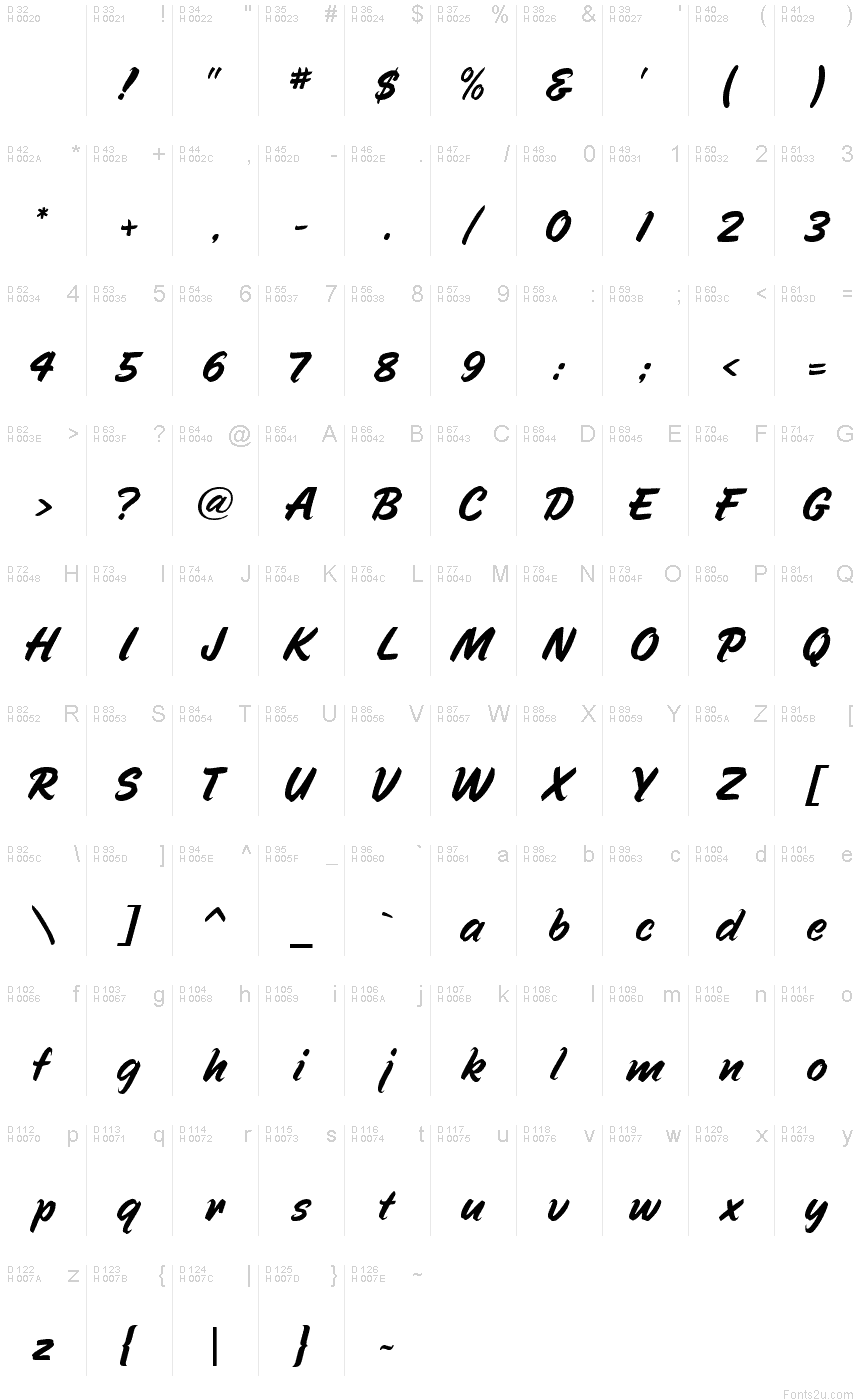
Speedline by Richard William Mueller is a free brush script with a forceful forward lean and broad, changing strokes. Its loosely joined letters, blunt brush marks, and long tapered sweeps give the writing a fast, hand-painted look.
The lettering has the pace of vintage racing graphics, making it convincing for motorsport posters and event merchandise. It can also lend food packaging or music artwork the directness of a painted shop sign. Its strongest audience is designers working with energetic sports, rock, or street-inspired themes.